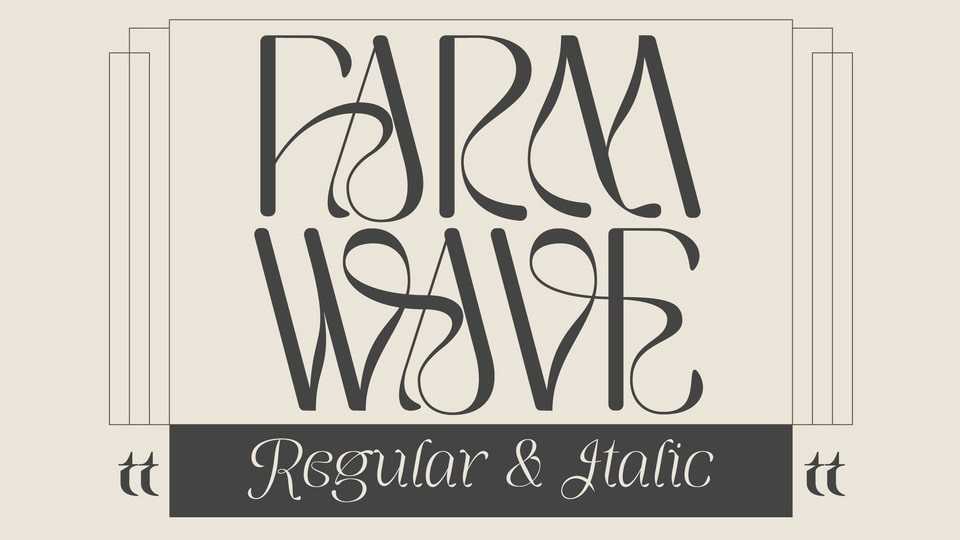
Farm Wave Font › Fontesk – Fonte Grátis
Download Farm Wave font, a fancy display typeface with an elegant retro look. Farm Wave font is perfect for posters, magazines, fashion, beauty branding design in vintage style suitable for your retro design concept.